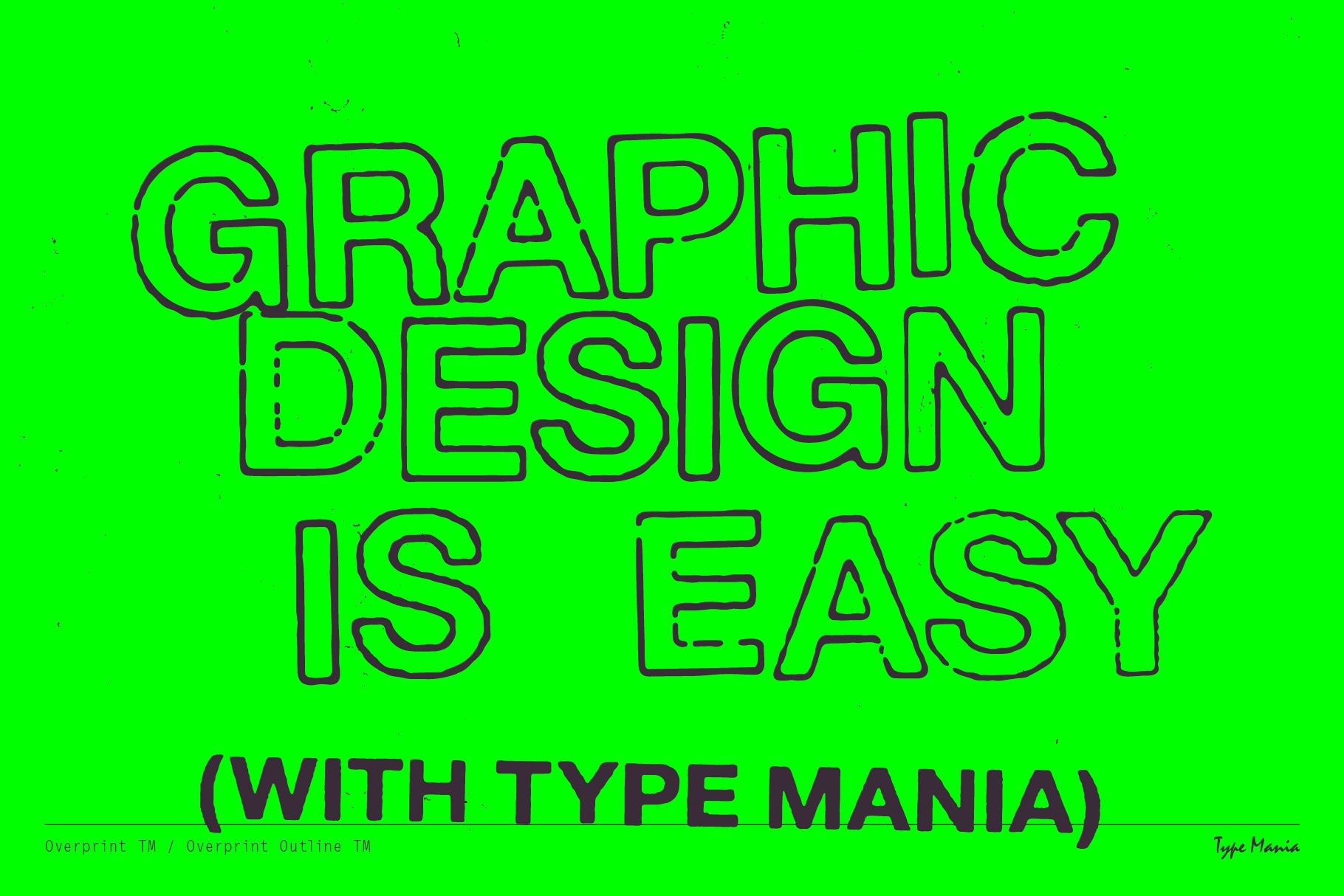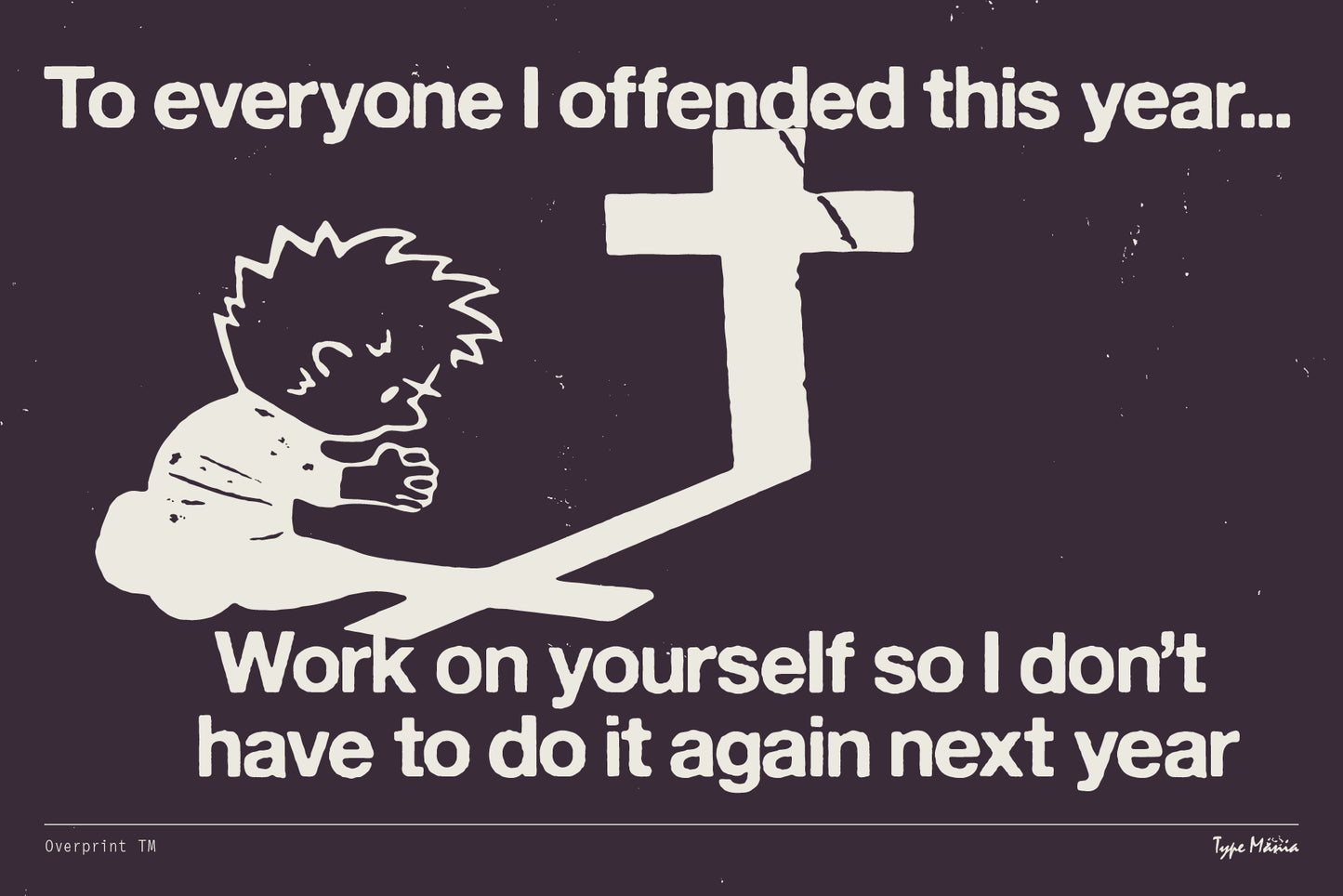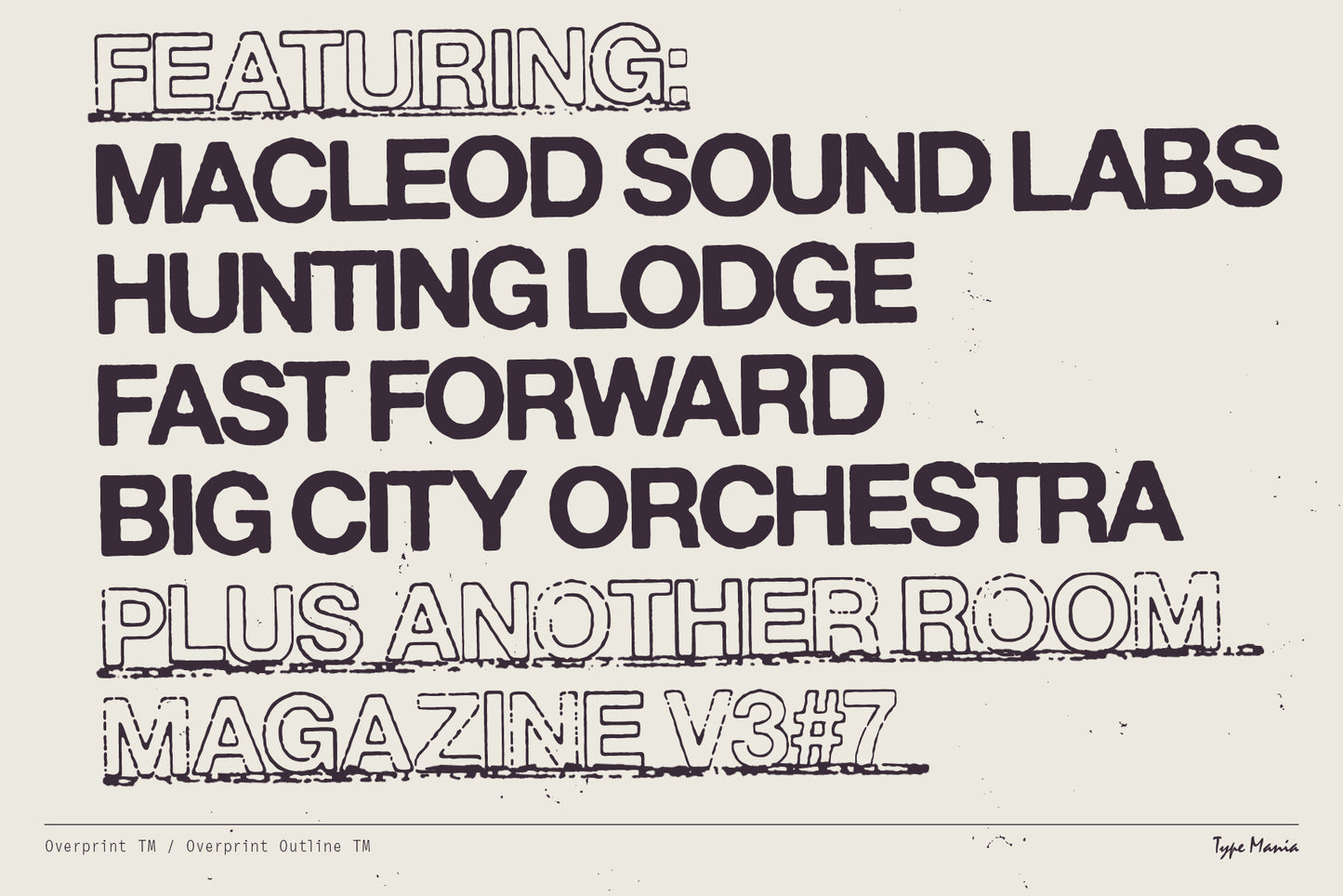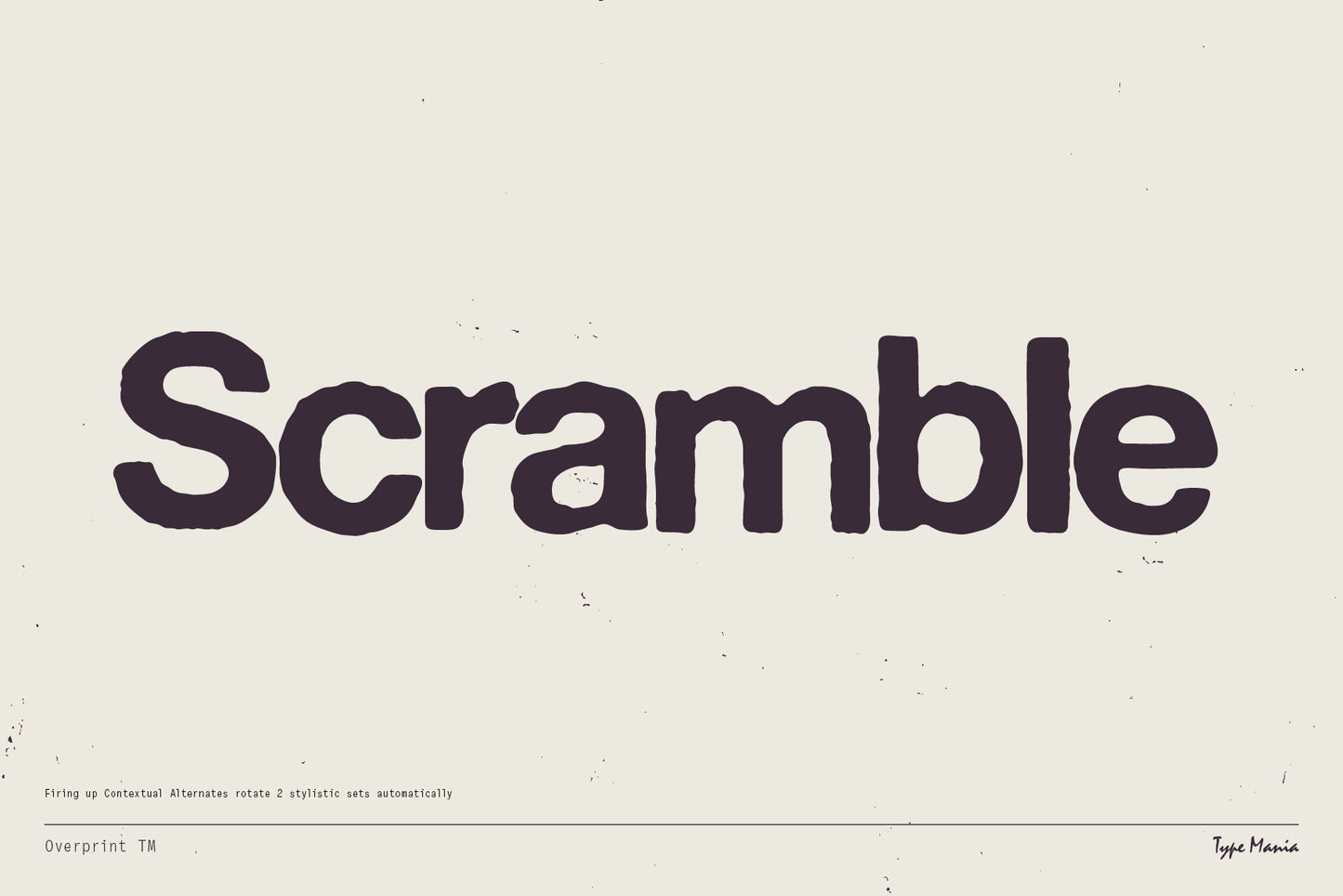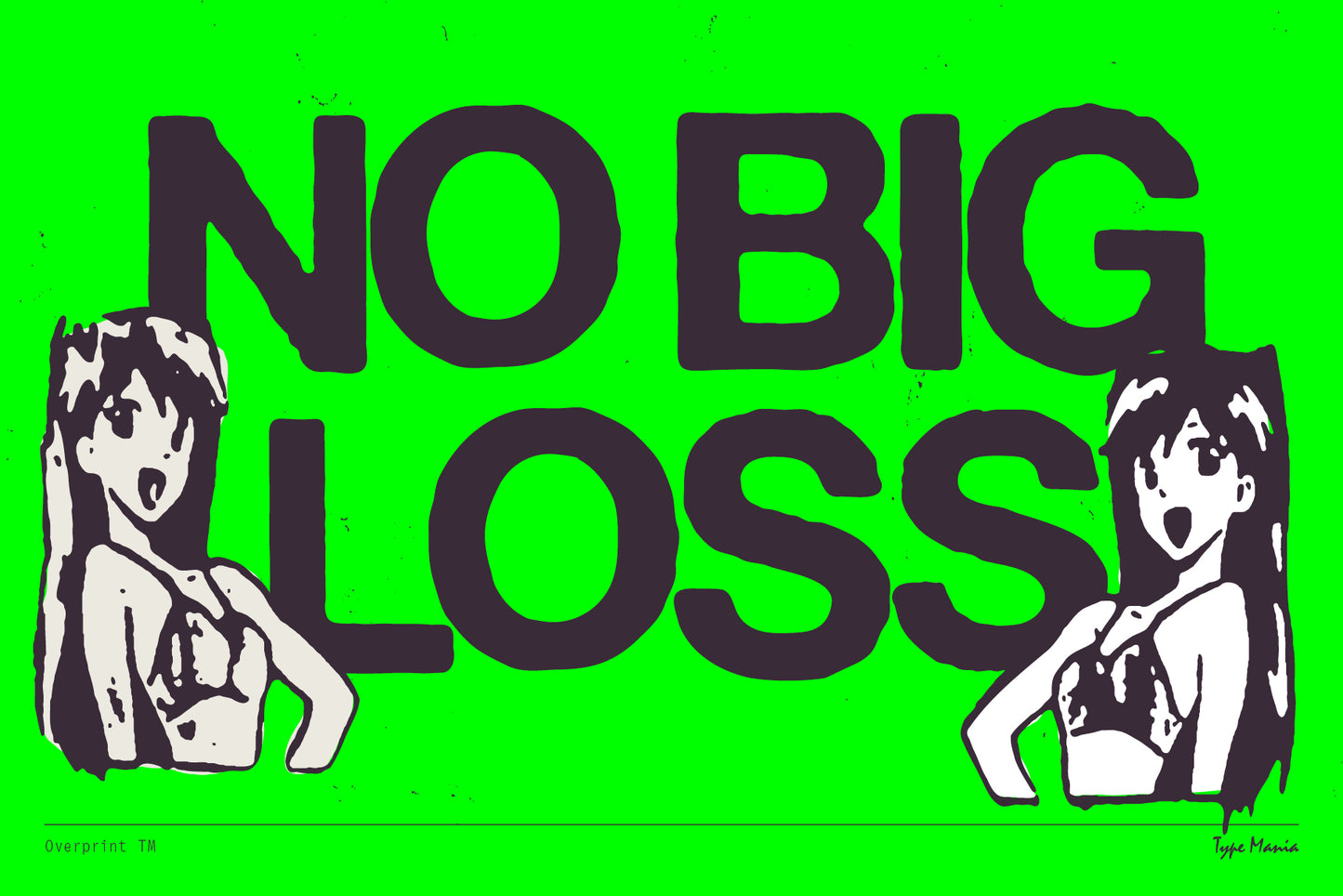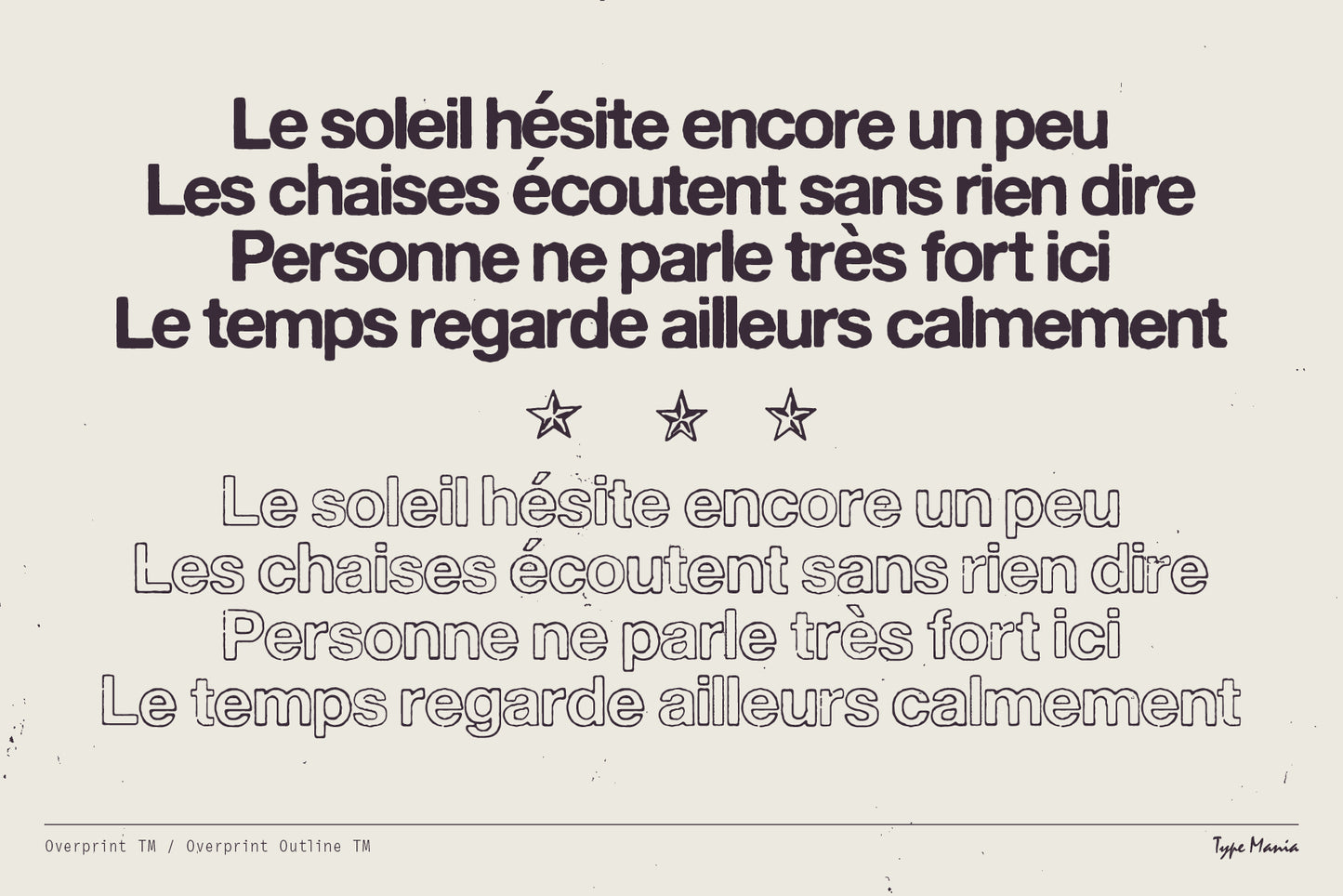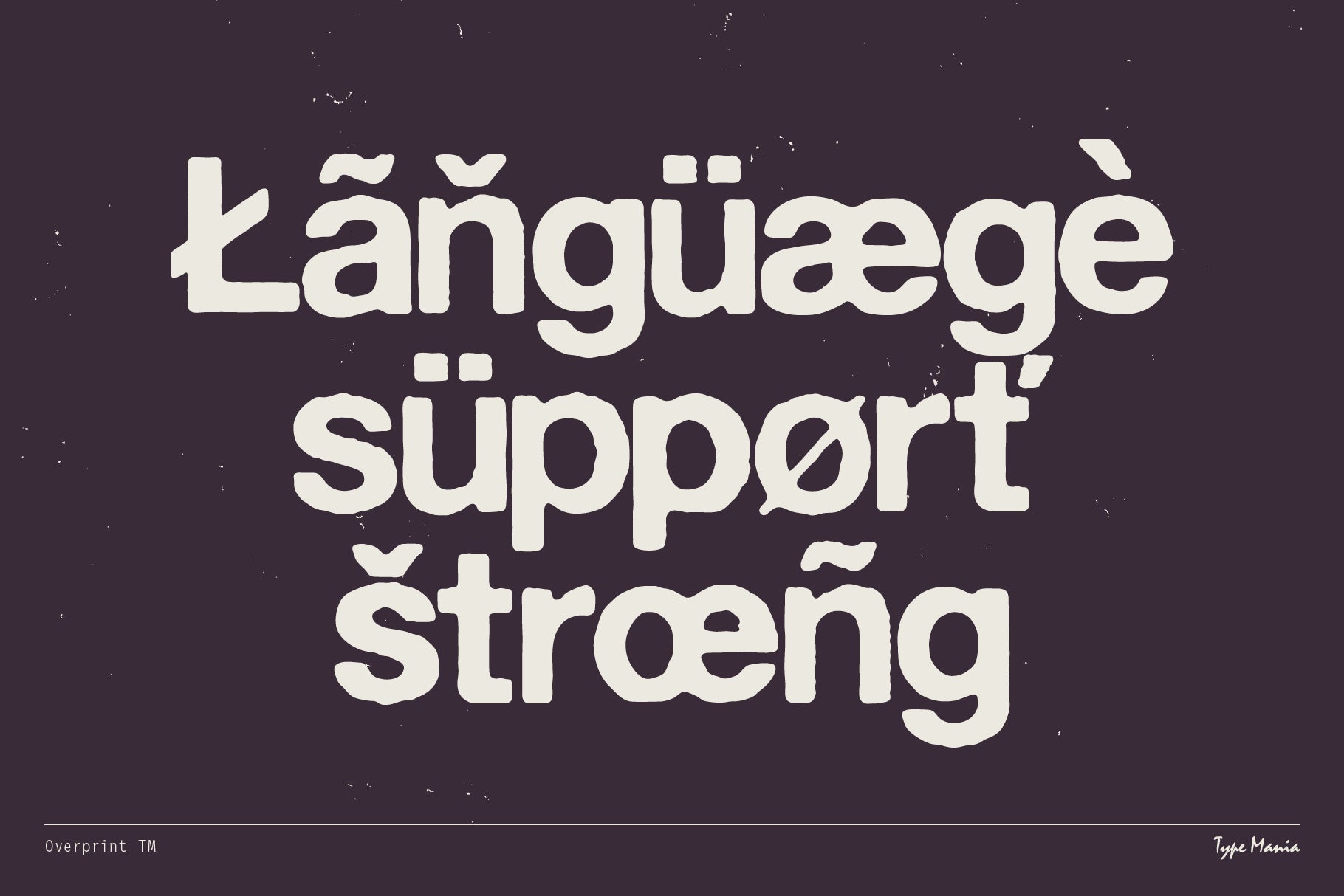
Overprint TM
Overprint TM, a distressed typeface featuring uneven edges and a xeroxed finish. The two stylistic sets rotate automatically with contextual alternates turned on, introducing subtle imperfections across words.
- 2 stylistic sets
- The font is programmed to automatically shift between the stylistic sets